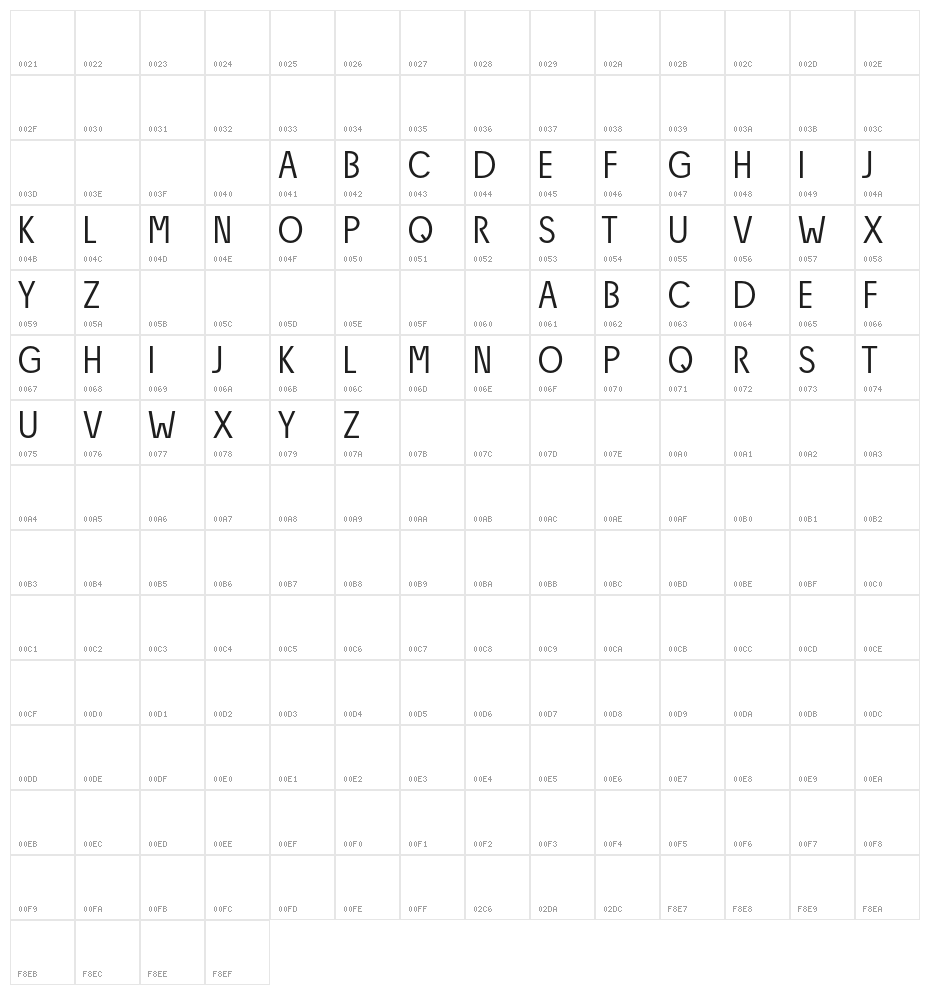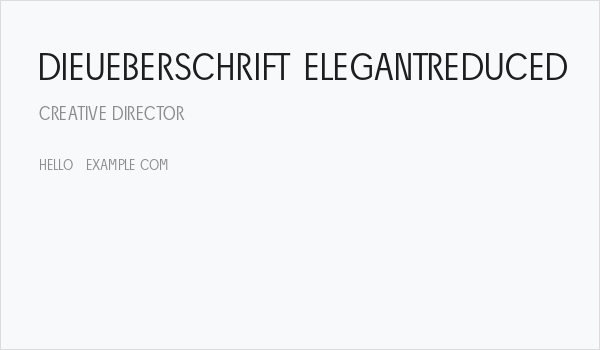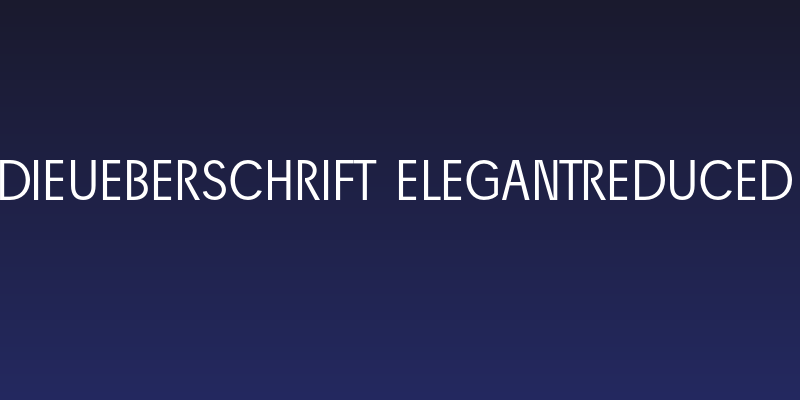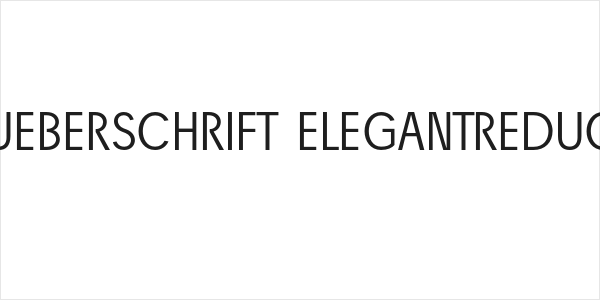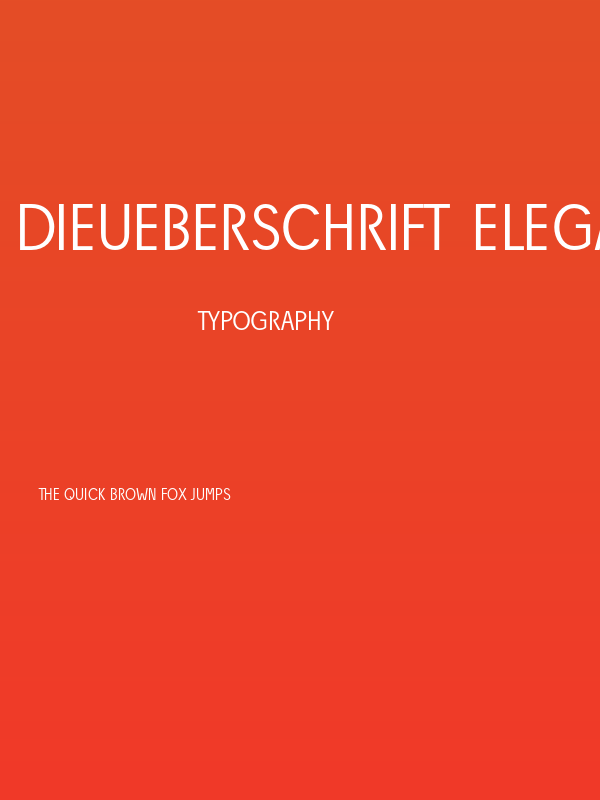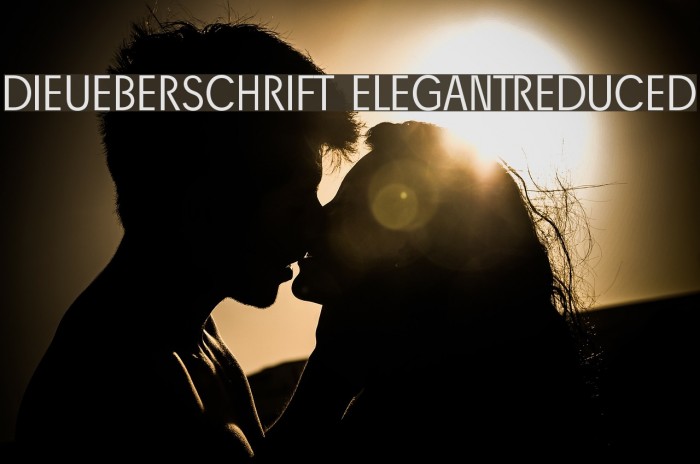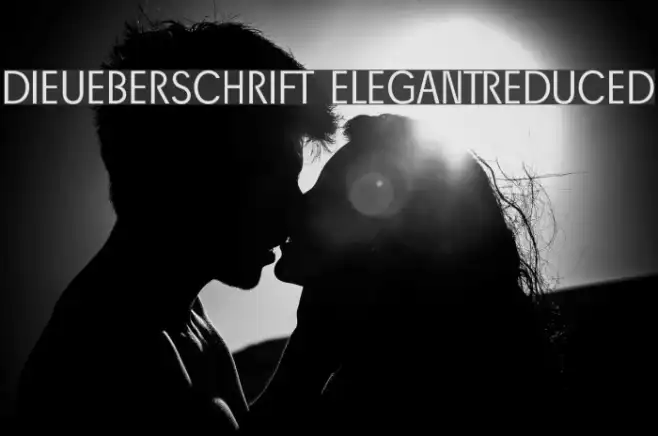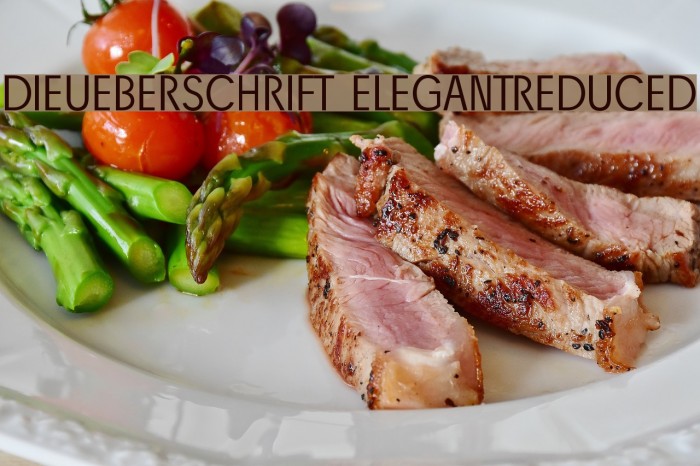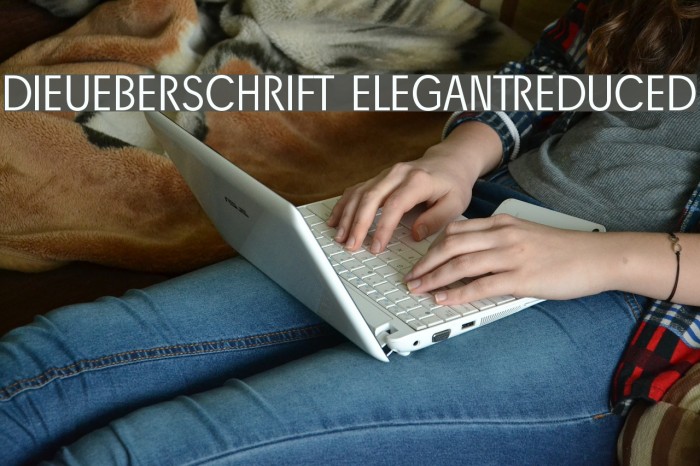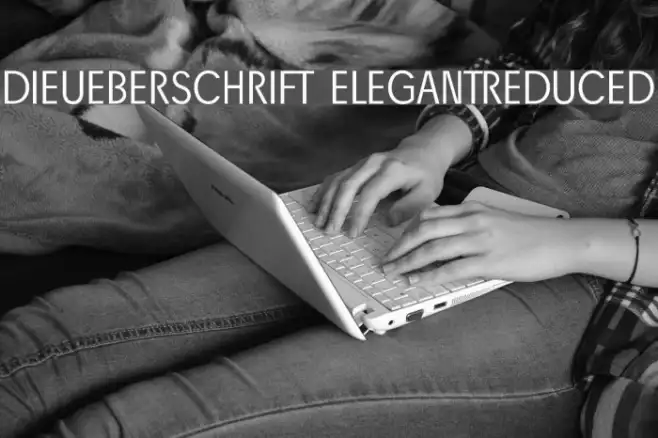
DieUeberSchrift-Elegantreduced Font
DieUeberSchrift-Elegantreduced Description
This font features a clean and modern sans-serif design, characterized by its geometric shapes and uniform stroke widths. The letters are well-proportioned, offering a sense of balance and clarity. The uppercase characters are bold and assertive, while the lowercase letters maintain a consistent style that complements the overall aesthetic. The font's simplicity and elegance make it versatile for various design applications. Its legibility is enhanced by the even spacing between characters, making it suitable for both digital and print media.
| Use Case | Headlines, Body text, Logos |
| Proposed Projects | Ideal for branding, editorial design, web design, and advertising campaigns. |